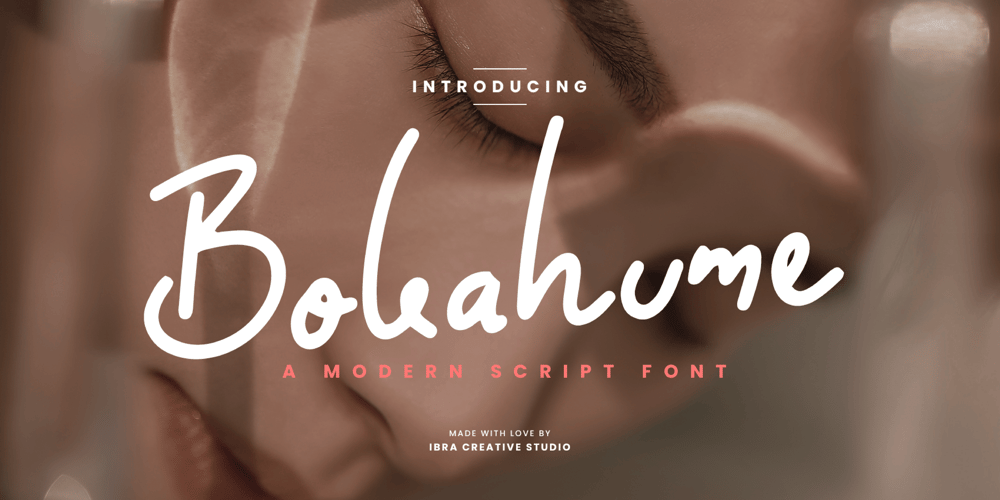
Bokahume
Bokahume font
Bokahume Font Family was designed by Roisatul Azizah and published by IbraCreative. Bokahume contains 1 styles and family package options. Bokahume is a captivating modern script font that effortlessly blends elegance with a contemporary edge. Its fluid and graceful letterforms flow seamlessly, creating a harmonious rhythm that captures attention. With its stylish swashes and gentle curves, Bokahume adds a touch of sophistication and versatility to any design project. From wedding invitations to fashion branding, Bokahume exudes a sense of refined beauty and modernity. Its balance between classic script elements and a contemporary twist makes it a perfect choice for those seeking a font that embodies both timeless elegance and a fresh, current aesthetic.